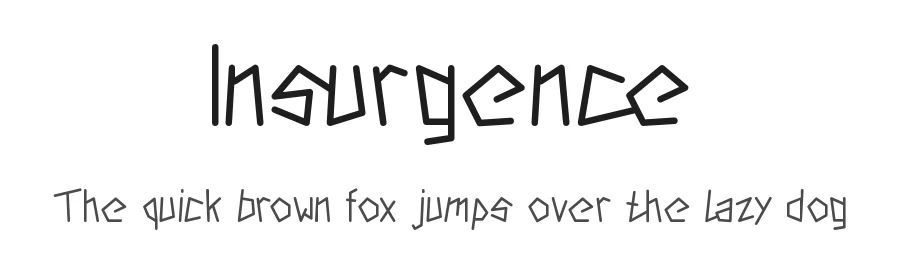
About Tape The Font
Tape The Font is a decorative font that shines as a display or heading face. Pair it with a clean sans-serif or serif font for body text β the contrast creates a clear hierarchy while the two styles stay balanced and easy to read.
Tape The Font
by M.H. Rinaldi